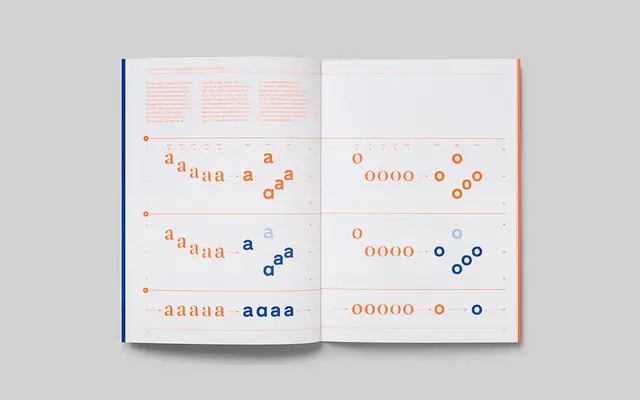
A 32-style sans-serif family originally commissioned as a corporate typeface for EINA University Centre of Art and Design, structured across four stylistic subfamilies — rational, humanist, geometric and industrial.
Designed as both a functional typeface and a teaching tool for EINA University Centre of Art and Design, the family spans four distinct stylistic categories, each available in four weights with companion italics. The design process was documented in the publication 'Four Nuances of a Typographic Standard: A Typeface for EINA', making the typeface as much a study in typographic pedagogy as in form. The four subfamilies can be purchased individually or as a complete set of 32 styles.
Eina is a sans-serif family organised into four distinct stylistic categories — rational, humanist, geometric and industrial — spanning the breadth of sans-serif subcategories, with humanist as the primary orientation given its educational and multi-purpose design intent.